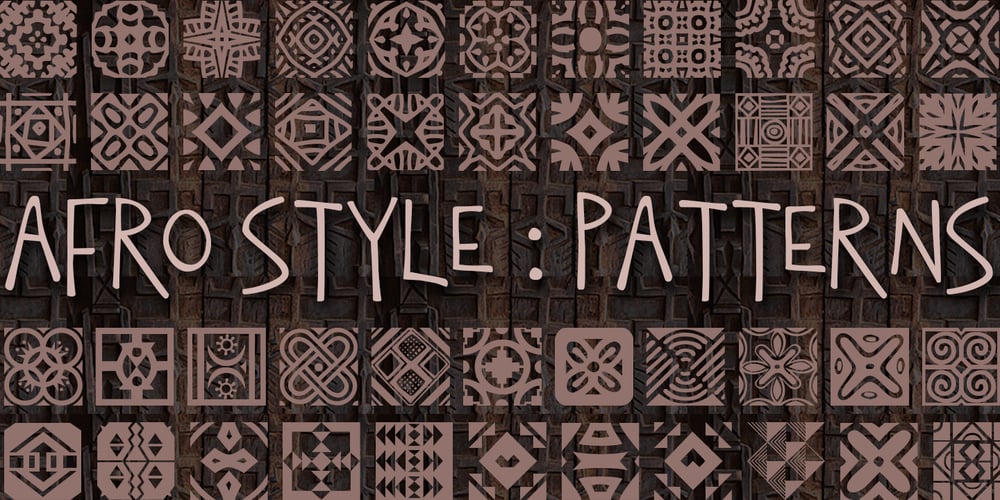
African Pattern Font Family was designed by Anton Scholtz and published by Scholtz Fonts. African Pattern contains 4 styles and family package options. The use of pattern is strongly integrated into African art, craft and culture. If you are creating designs which are to have an African look, then the African Pattern Fonts are an essential resource. The patterns vary tremendously — either gently rounded in shape, or with a stark African angularity they reflect the ethos of Africa. Some of the fonts (African Patterns 01 and 02) have been inspired by the designs of Africa without regard for specific tribes or ethnic borders. They create a strong sense of “African-ness” without a narrow connection to any specific tribe. African Patterns 03 (Zulu and Ndebele) and 04 (Mali), in contrast, have been closely based on traditional patterns that are currently in use by the better known pattern-using African tribes. You can use the fonts as elements in graphic designs (using Adobe Illustrator, Adobe Photoshop, Adobe Freehand or equivalent programs). However, you don’t have to be a graphic designer to use these fonts: you can easily make borders and patterns in word processing packages such as Microsoft Word. (See the Gallery Images for instructions). Each African Pattern font contains 52 different pattern units. You can combine these in a myriad of ways giving an almost unlimited number of patterns. You can even overlay one pattern with another, allocating a different color to each layer. Explore your own creativity — experiment!